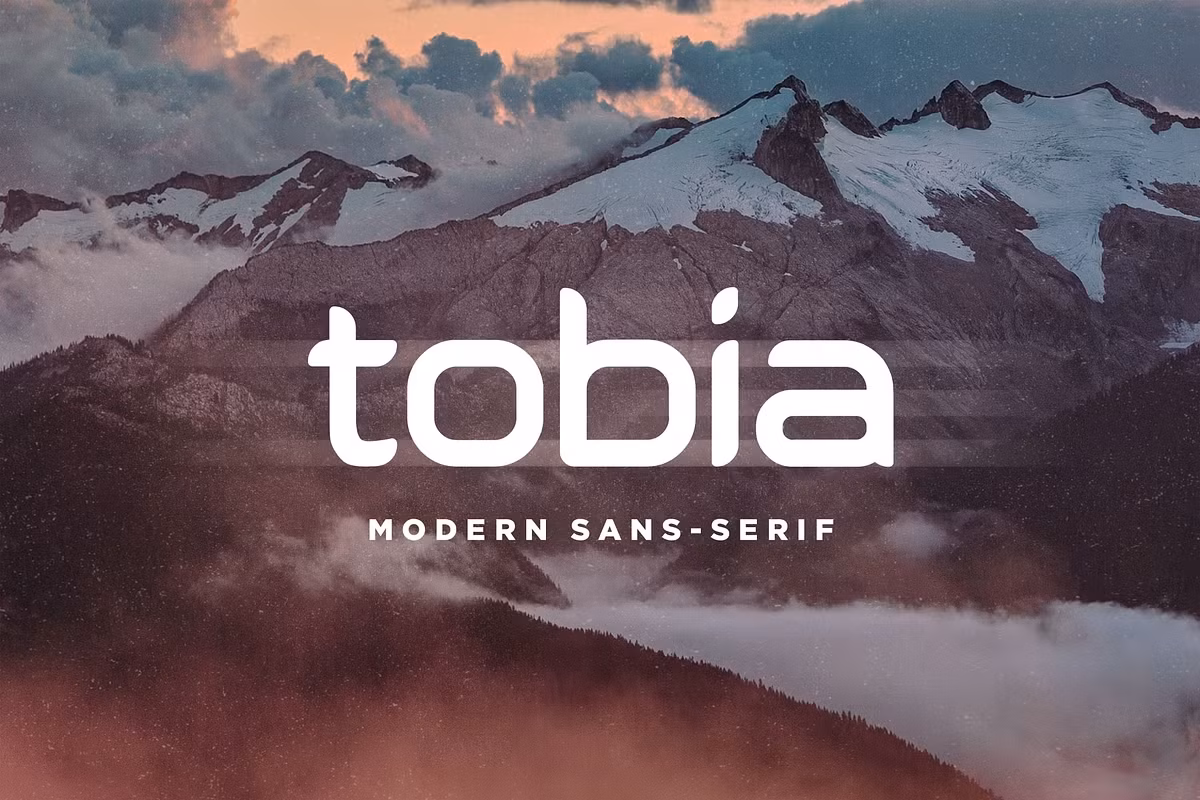
Tobia | Modern Sans-Serif Typeface Free Download
You must purchase this font for commercial use. However, you can download Tobia | Modern Sans-Serif Typeface Free Download for testing purposes. Tobia is a sleek and contemporary sans-serif typeface designed for modern, clean, and minimalistic designs. Perfect for branding, web design, logos, social media graphics, and editorial layouts, this font brings a fresh, professional look to any project.
With its smooth, geometric letterforms and balanced proportions, Tobia offers excellent readability and versatility. Whether you're working on a corporate identity, a trendy logo, or designing marketing materials, this font will help you achieve a polished and sophisticated look.